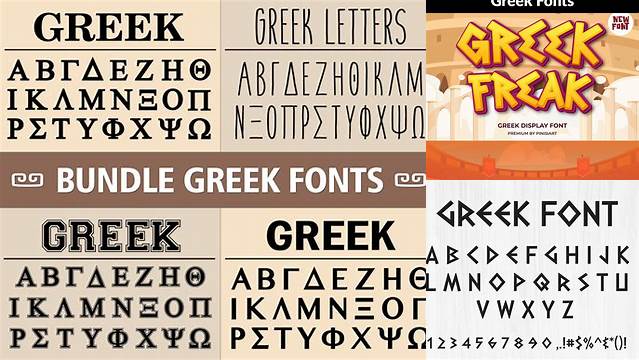
Introduction: Unlocking the Beauty of Greek Fonts Online
Hey guys! Ever found yourself needing that perfect free font online greek for a project? Whether you're designing a website, crafting invitations, or just want to add a touch of Hellenic flair to your work, the world of Greek fonts can be both exciting and a little daunting. Finding the right free fonts online greek involves navigating through a sea of options, ensuring they not only look great but are also compatible with your needs. This comprehensive guide will explore the fascinating universe of free fonts online greek, providing you with everything you need to know to make the best choices.
H2: Understanding the Basics of Greek Fonts
Before we dive into the specifics of where to find and how to use free fonts online greek, let’s get some basics down. Greek fonts, much like Latin fonts, come in a variety of styles, from elegant serif fonts reminiscent of ancient inscriptions to modern sans-serif fonts that are perfect for digital displays. Understanding the different categories and their typical uses will significantly aid your search for the ideal free fonts online greek. When considering free fonts online greek, it's important to think about readability, especially if you're dealing with large blocks of text. The spacing, stroke thickness, and overall design of the font play a crucial role in how easily the text can be read. Moreover, the emotional tone a font conveys should align with the project's purpose. A formal document might call for a traditional Greek serif font, whereas a modern website could benefit from a sleek, sans-serif option. The availability of various weights (light, regular, bold) and styles (italic, oblique) within a font family is another key factor, offering flexibility in design. Lastly, ensure the font supports all the necessary Greek characters and diacritics to maintain linguistic accuracy and professionalism.
H2: Where to Find Free Greek Fonts Online
Alright, let's talk about where the magic happens! The internet is brimming with resources for free fonts online greek, but knowing where to look can save you a ton of time and effort. Reputable font repositories like Google Fonts, Font Squirrel, and DaFont are excellent starting points. These sites offer a wide selection of free fonts online greek, often with clear licensing information, which is crucial for ensuring you can use the fonts legally. Google Fonts is particularly user-friendly, allowing you to preview fonts directly in your browser and even download the necessary files with just a few clicks. Font Squirrel is known for its high-quality free fonts, many of which come with commercial licenses, giving you more flexibility in how you use them. DaFont, while offering a diverse range of fonts, requires a bit more caution as the licensing terms can vary greatly from font to font. Always double-check the license to ensure it aligns with your intended use. Other valuable resources include MyFonts, which has a substantial collection of both free and commercial fonts, and Adobe Fonts, which is a subscription-based service offering a vast library of fonts, including many Greek options. For unique and handcrafted free fonts online greek, exploring independent foundries and designers' websites can uncover hidden gems. Social media platforms, such as Behance and Dribbble, also feature designers sharing their work, sometimes offering free fonts as promotional tools. Remember, while these platforms provide access to numerous free fonts, due diligence in verifying the license is critical to avoid copyright infringements.
H2: Top Websites Offering Free Greek Fonts
Let's break down some of the top websites where you can find free fonts online greek. We’re talking about places that not only have a good selection but also make it easy to find what you need. Google Fonts, as we mentioned, is a powerhouse. It’s got a clean interface, a massive library, and all fonts are open-source, meaning you can use them for just about anything. Another great option is Font Squirrel. They pride themselves on offering commercially licensed free fonts online greek, which is a huge plus if you're working on projects for clients. DaFont is another popular choice, but always double-check those licenses! They have a massive selection, but the quality and licensing can vary. For a more curated selection, check out websites like Behance and Dribbble, where designers often share their free fonts online greek. These can be fantastic for finding unique and artistic fonts that you won't find anywhere else. When evaluating websites for free fonts online greek, several factors should be considered to ensure a smooth and secure experience. The website's reputation and credibility are paramount; well-established platforms are less likely to host fonts with malware or misleading licensing terms. User reviews and ratings can provide valuable insights into the quality and usability of the fonts available on the site. The ease of navigation and search functionality also play a crucial role, allowing users to quickly filter fonts by style, language support, and license type. A clear and concise presentation of licensing information is essential, preventing unintentional copyright infringements. Download speed and reliability are practical considerations, ensuring a hassle-free font acquisition process. The availability of font previews and test characters can greatly aid in font selection, allowing users to assess the font's suitability for their project. Lastly, a responsive customer support system can be beneficial for addressing any queries or concerns that may arise.
H2: How to Choose the Right Free Greek Font
Choosing the right free fonts online greek can feel like picking the perfect ingredient for a recipe. You need it to complement the dish (or, in this case, your design). Think about the tone you want to convey. A classic serif font might be perfect for a formal invitation, while a modern sans-serif could be better for a website. Consider the readability too. If you're using the free fonts online greek for body text, you'll want something that's easy on the eyes. Don't forget about licensing! Make sure the font is actually free for your intended use. When evaluating free fonts online greek, several critical factors should be taken into account to ensure the selection aligns with the project's specific requirements and objectives. The font's readability is paramount, particularly for body text, where clarity and ease of reading are essential. The font's style and aesthetic should harmonize with the overall design and brand identity, conveying the intended message and tone. The weight and variations available within the font family (e.g., light, regular, bold, italic) provide flexibility in design and ensure consistency across different applications. The character set's completeness, including support for Greek characters and diacritics, is crucial for linguistic accuracy. The font's scalability and performance across various devices and screen sizes are vital for digital projects. The licensing terms must be carefully reviewed to ensure compliance with the intended use, whether for personal or commercial purposes. Finally, testing the font in context, such as in mockups or prototypes, can help assess its visual impact and compatibility with other design elements.